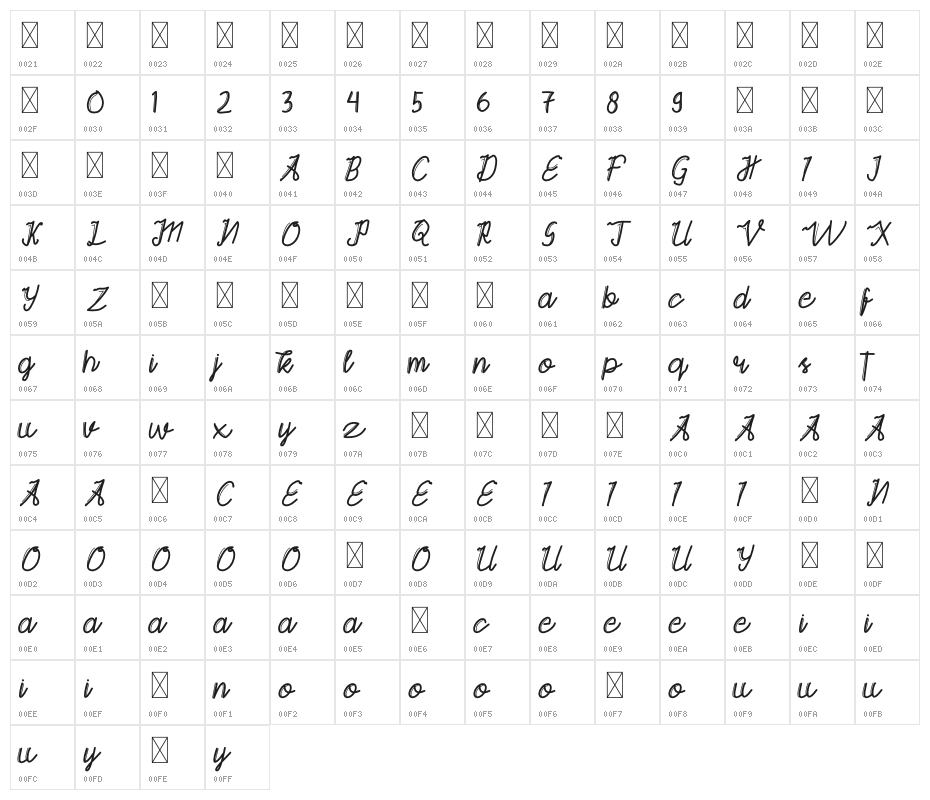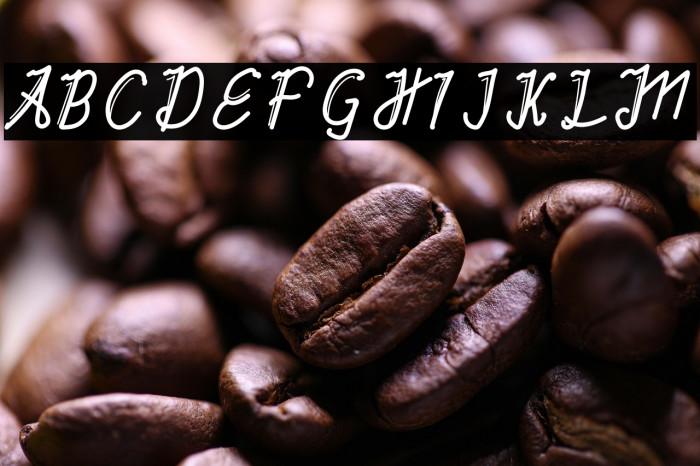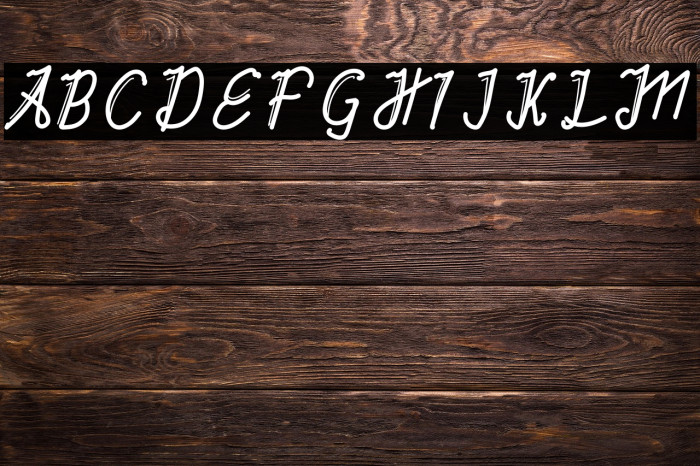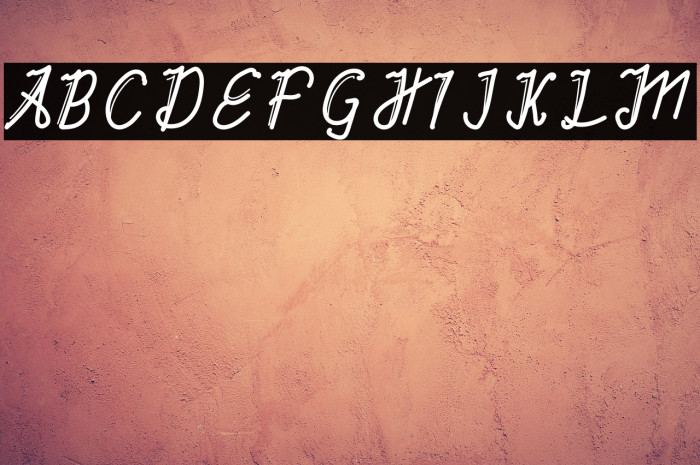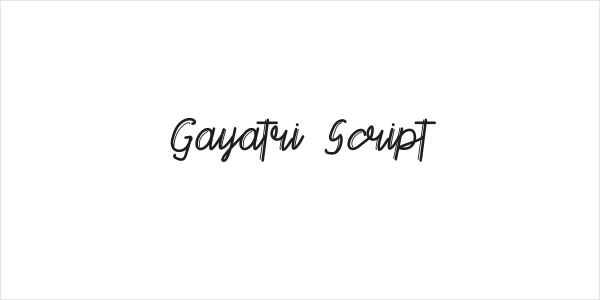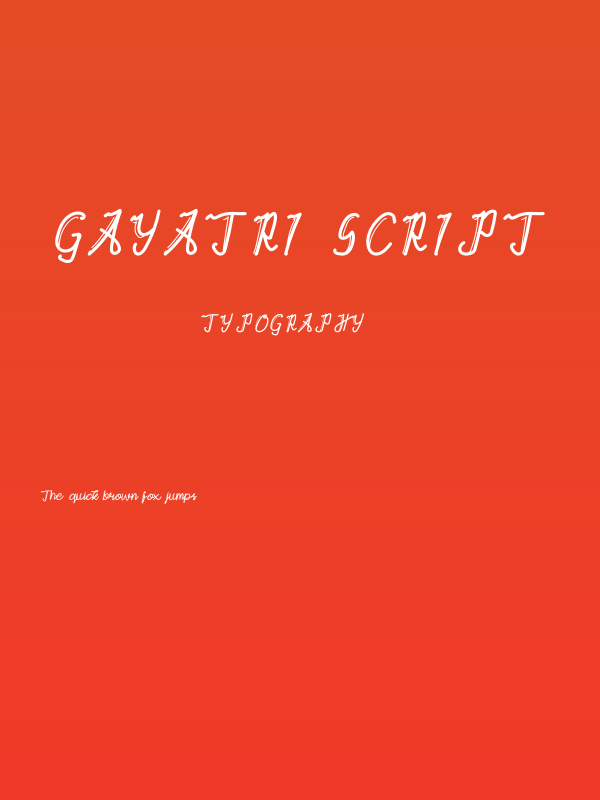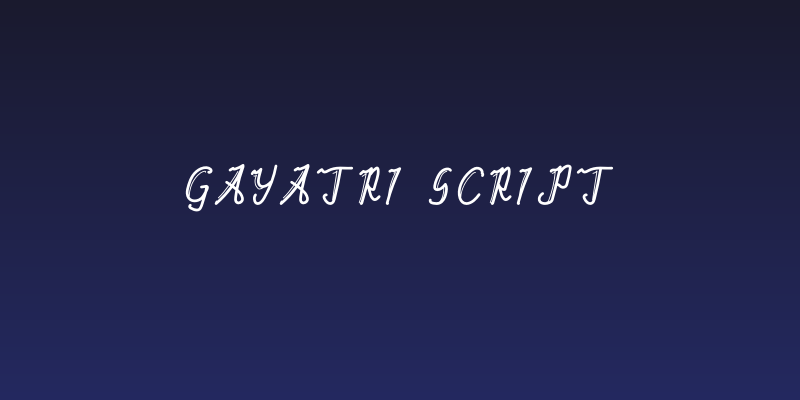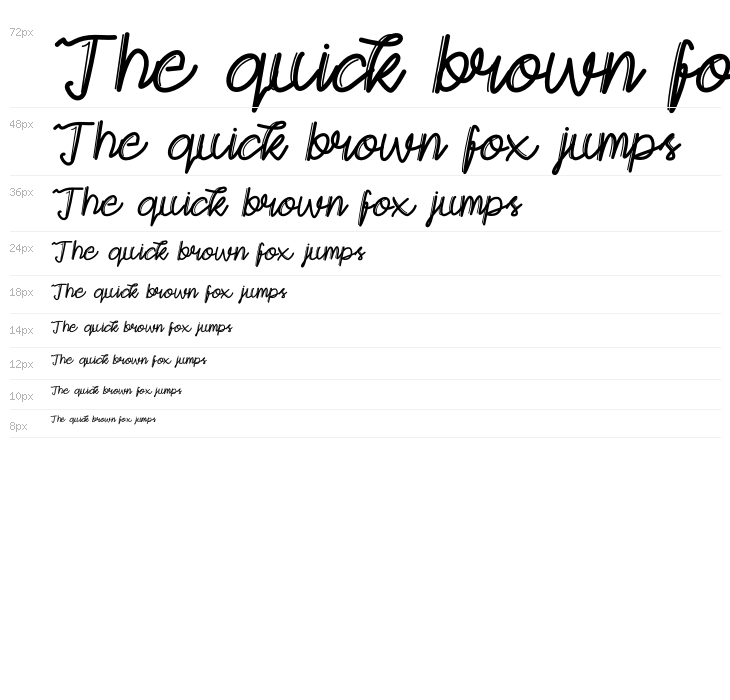
Gayatri Script Font
Gayatri Script Description
This font features a flowing, cursive style with elegant, sweeping strokes that give it a handwritten appearance. The uppercase letters are distinct with a slight slant, while the lowercase letters maintain a consistent flow, enhancing readability. The numerals are bold and clear, complementing the overall script style. The special characters are designed to match the fluidity and elegance of the alphabet, making this font versatile for various creative applications. Its artistic flair makes it suitable for projects that require a personal touch or a sense of sophistication.
| Overall Style | Elegant, Handwritten |
| Use Case | Headlines, Invitations, Logos |
| Proposed Projects | Ideal for wedding invitations, greeting cards, branding, and elegant logo designs. |